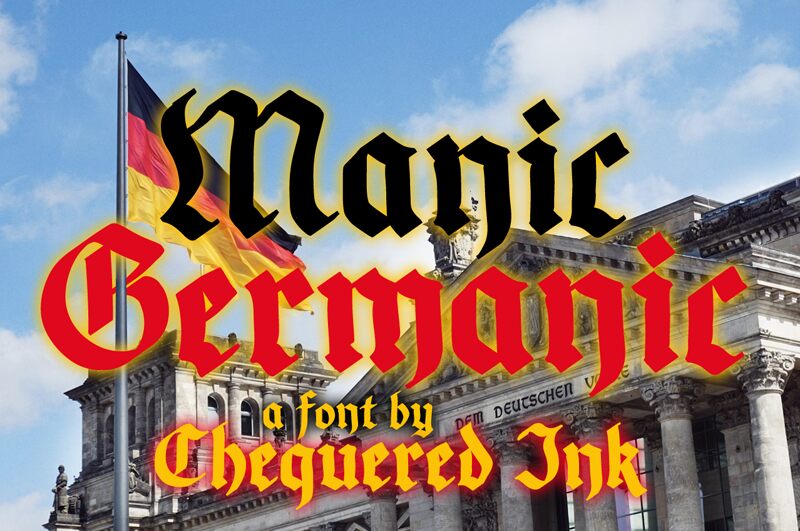
Manic Germanic font by Chequered Ink is a free Gothic font that channels the rich design of historical architecture, art, and scripts. This typeface offers a Gothic-inspired quality that creates a sense of occasion and authority. With a traditional essence incorporated into the design, this ornate font looks simply remarkable in large sizes like headers or logotypes where its visual weight is impactful.
There are many contexts where this majestic font can stand out and demonstrate all of its qualities. Besides the usual invitations, posters, and branding material, try using it in decorative packaging and on books and magazine cover designs. Movie titles and marketing on social media can also stand out thanks to the typeface’s identity and character.